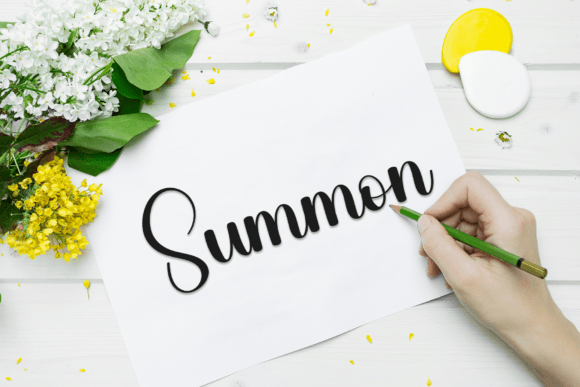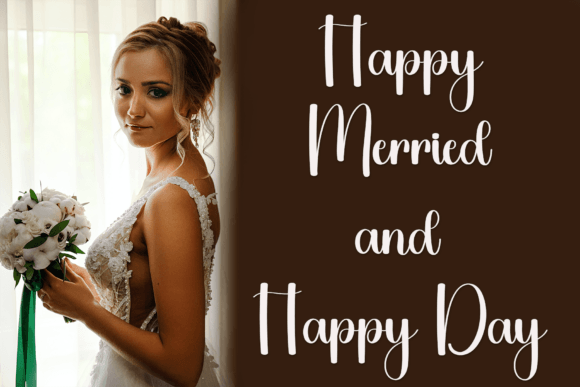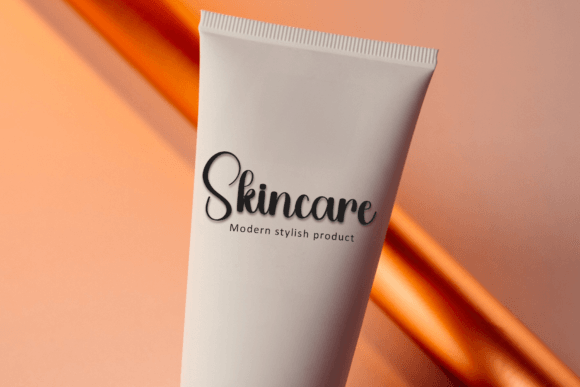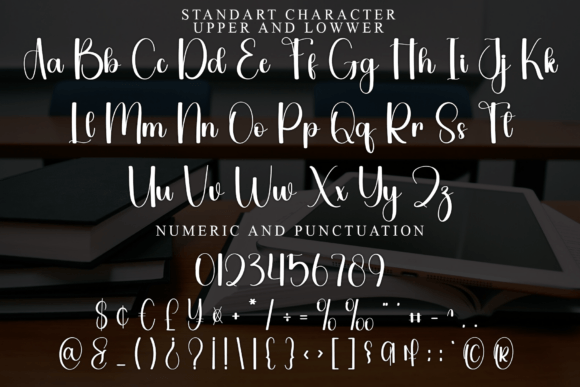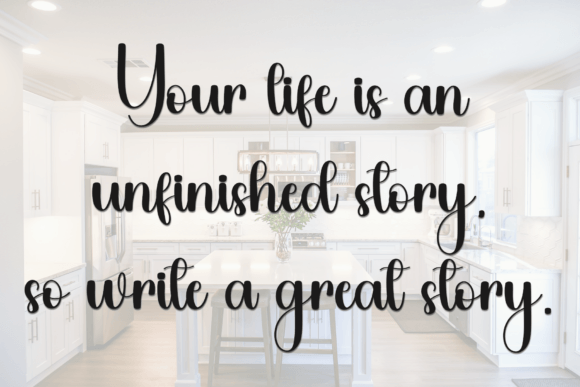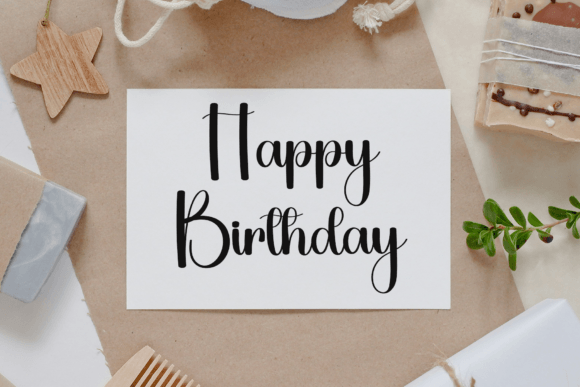
Introduction to Lighning Font
Do you remember the excitement of decorating your room for the holidays as a child? The twinkling lights, the garlands of greenery, and the festive decorations that brought your space to life? As a designer, you’re no stranger to the magic of the holiday season, and the perfect font can make all the difference in capturing that enchanting spirit.
Enter the Lighning Font, a delightful and whimsical typeface that’s sure to bring a touch of nostalgia and cheer to your designs. With its intricate details and playful flair, this font is perfect for creative projects like greeting cards, gift tags, and holiday-themed prints. Whether you’re working on a high-quality design for a client or a personal project, the Lighning Font is a valuable resource that’s sure to elevate your typography game.
Key Features of Lighning Font
- Unique, modern font with a transparent background, allowing for seamless integration with various design elements.
- Comes in a single size, making it easy to use across various design applications and platforms.
- Designed at a high resolution (300 DPI), ensuring crisp and clear typography in print and digital formats.
- Perfect for designers and artists looking for a unique, high-quality font to enhance their creative projects.
Honest Review: Lighning Font
As a designer, I’m always on the lookout for high-quality design resources to elevate my creative projects. I recently came across Lighning Font, and I must say, it’s a great addition to my design arsenal. ✨
Lighning Font is a free download that offers a range of stylish and modern fonts perfect for any design project. The transparent background feature allows for seamless integration with other design elements, making it a great resource for creatives.
Here are some of the things that work well with Lighning Font:
- High-quality fonts that are perfect for creative projects
- Great for logos, headings, and body text
- The font selection is limited, so you may not find exactly what you’re looking for
- No advanced customization options
Overall, I’m impressed with Lighning Font. It’s a great design resource that’s perfect for designers who want high-quality fonts without breaking the bank. I’d definitely recommend it to fellow designers.
Introduction to Lighning Font
Lighning Font is a high-quality, free download design resource perfect for any creative project. With a transparent background, this font is versatile and easy to use.
Tips for Getting the Most Out of Lighning Font
For optimal results, use Lighning Font in combination with other design resources, such as graphics and textures. Experiment with different font sizes and styles to find the perfect look for your project.
Lighning Font is perfect for a variety of creative projects, including social media graphics, presentations, logos, and infographics. Its high quality and transparent background make it a versatile design resource for any project.